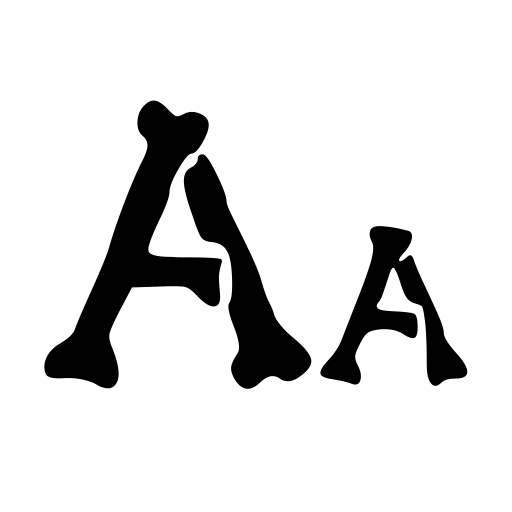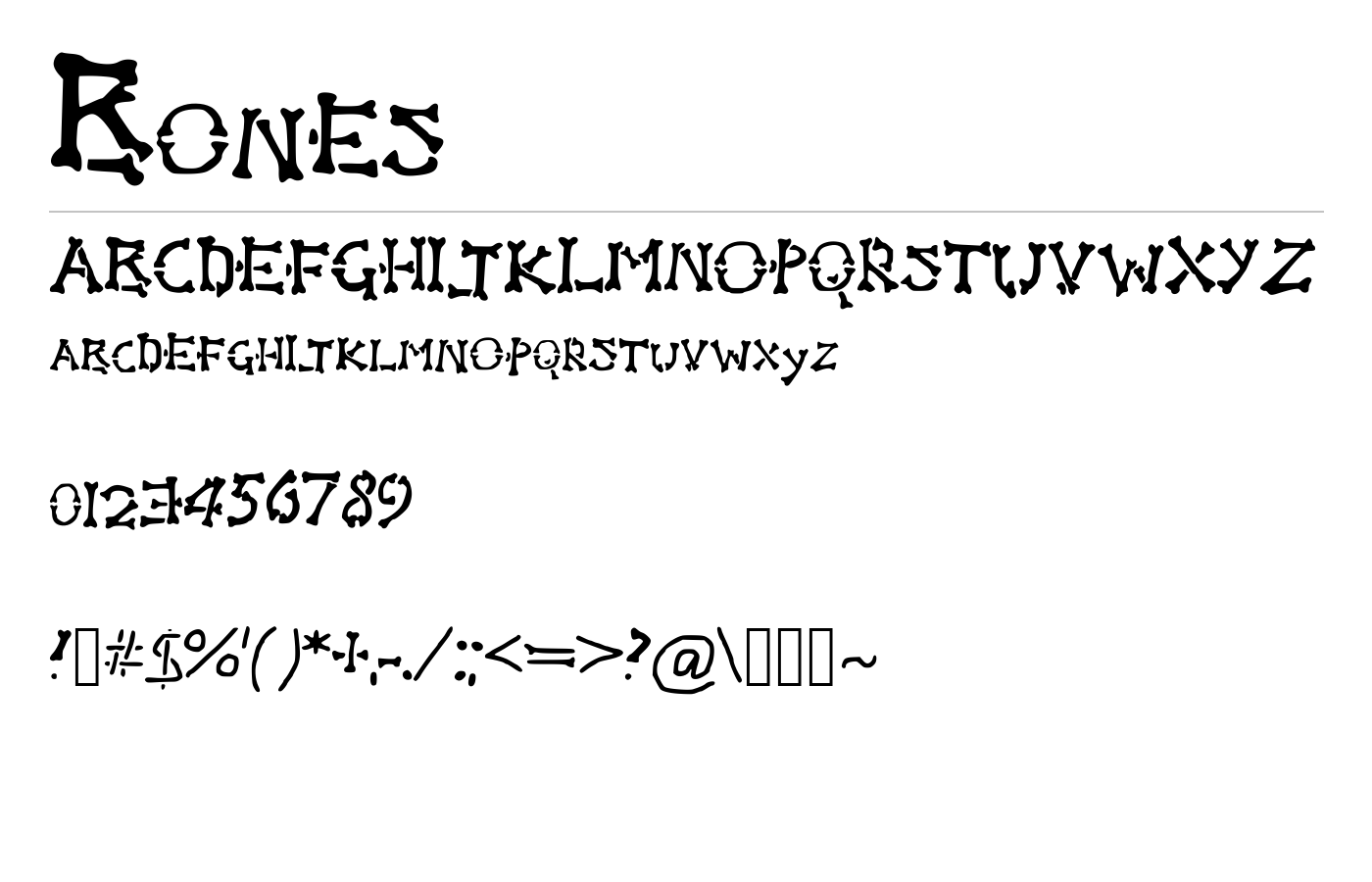
Bones Font is a playful and decorative display typeface with a unique, bone-like structure that gives each letter a quirky, organic feel. Its irregular shapes and moderate contrast make it ideal for fun, thematic designs such as Halloween projects, posters, or branding that calls for a spooky yet approachable vibe. This font works best in headlines or titles where its distinctive style can make a strong visual impact.
Bones Font
About Bones Font